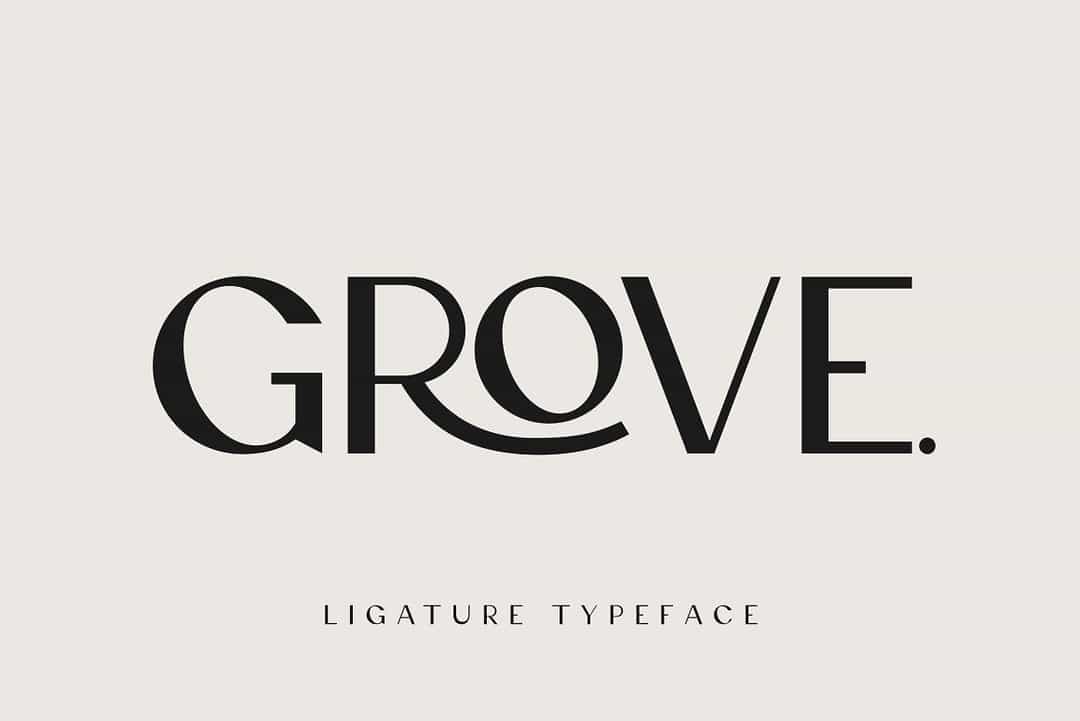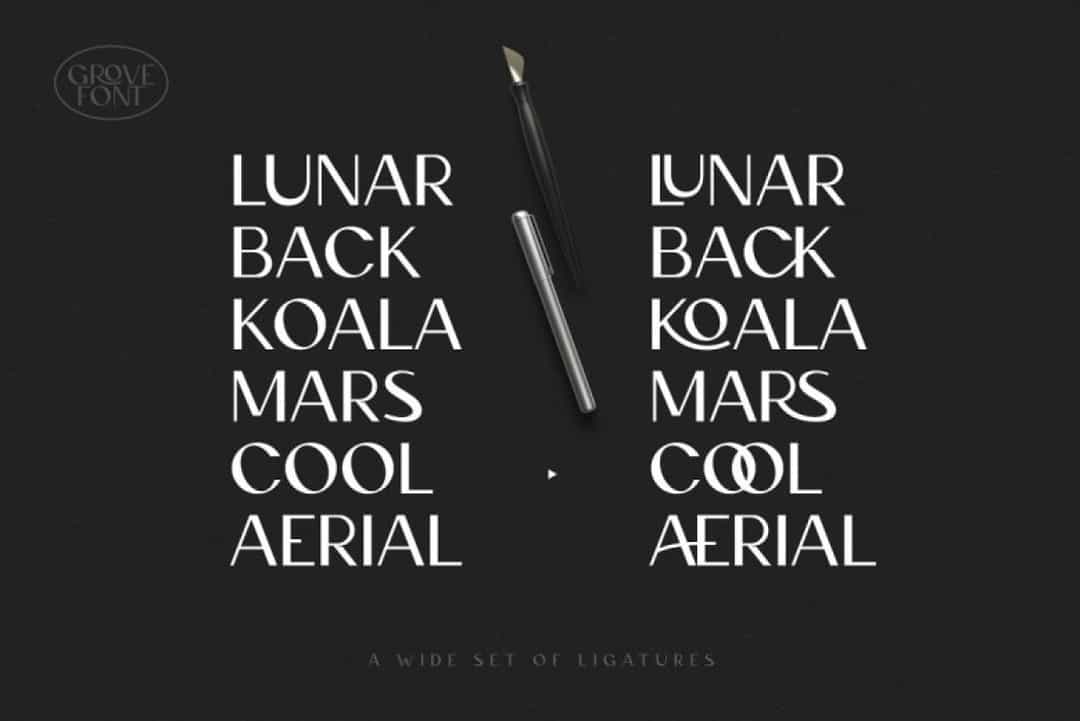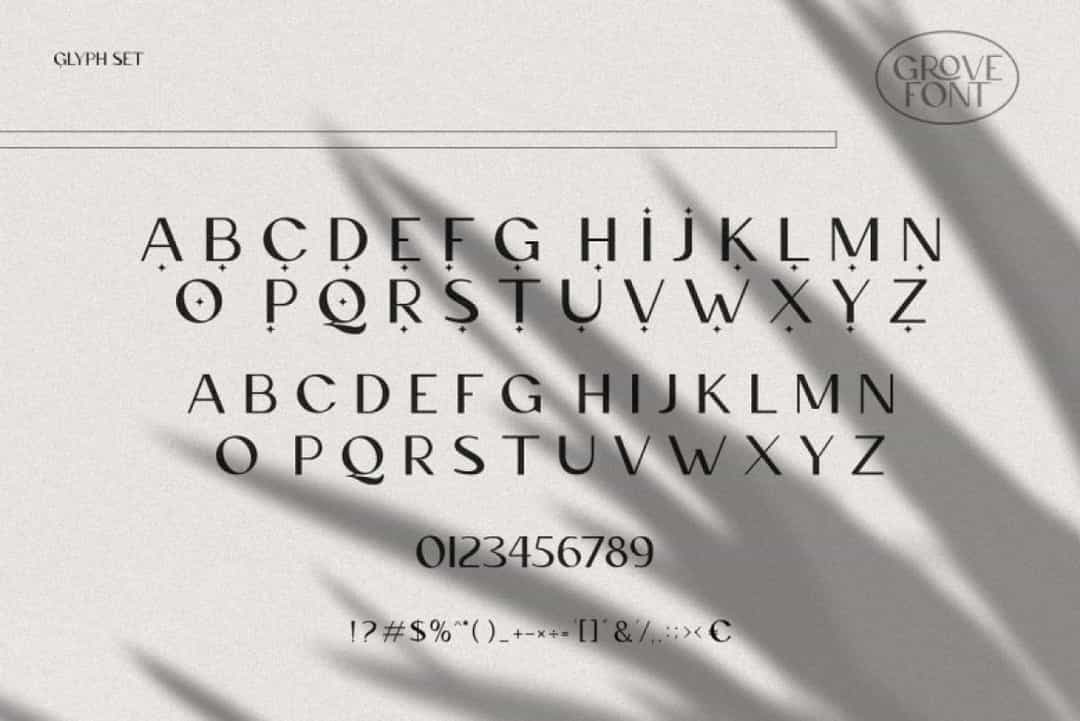
Grove is a contemporary sans-serif font with minimalist lines and clean shapes, high contrast, and plenty of ligatures. Grove combines both elegant serif typefaces (high contrast) with more modern, sleek serif fonts to achieve its distinctive appearance.